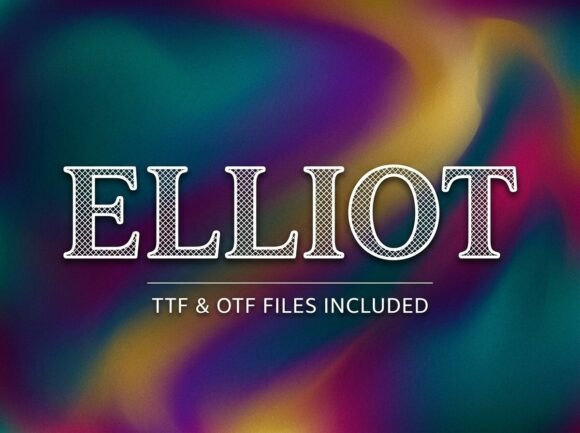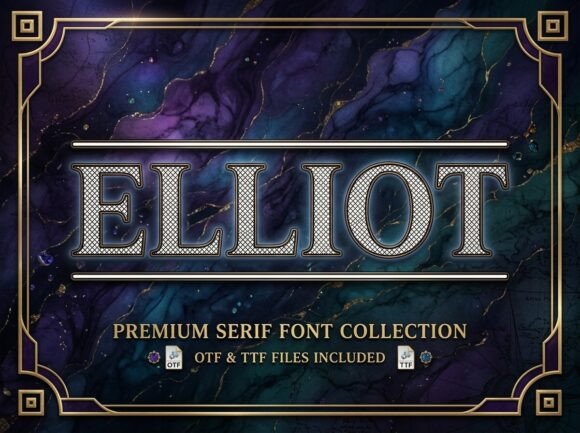
Elliot Font: Elevate Your Designs with Modern Sophistication
In the world of typography, fonts play a crucial role in conveying the tone and personality of a brand. For designers and crafters seeking to add a layer of modern sophistication to their designs, the Elliot font is an exceptional choice. This premium display serif typeface embodies a unique blend of refinement and industrial flair, making it perfect for luxury tech branding, high-end sportswear logos, architectural firm identities, and social media headers.
The Unique Characteristics of Elliot Font
The Elliot font boasts classic, high-contrast serif letterforms that are uniquely filled with an intricate, cross-hatched mesh pattern. This distinctive feature sets Elliot apart from other serif fonts and gives it a modern edge. The crisp white outlines and rhythmic geometric texture of the font create a visually striking effect that is sure to capture the attention of your audience.
Design Inspiration and Applications
The Elliot font draws inspiration from the intersection of luxury and industrial design. Its refined-and-industrial soul makes it an ideal choice for brands seeking to convey a sense of high-end quality and sophistication. Some of the key applications for the Elliot font include:
- Independent luxury tech branding: Elliot’s unique blend of refinement and industrial flair makes it perfect for luxury tech brands seeking to establish a strong visual identity.
- High-end sportswear logos: The font’s modern sophistication and geometric texture make it an excellent choice for high-end sportswear brands looking to create a stylish and premium visual identity.
- Architectural firm identities: Elliot’s classic serif letterforms and intricate mesh pattern evoke a sense of luxury and refinement, making it suitable for architectural firms seeking to establish a professional and high-end brand image.
- High-impact social media headers: The font’s crisp white outlines and geometric texture make it perfect for creating eye-catching social media headers that demand attention.
Typography and Brand Identity
Typography plays a vital role in establishing a brand’s visual identity. The Elliot font offers a range of benefits for designers and crafters seeking to create a strong brand image. By incorporating Elliot into your designs, you can:
- Convey luxury and sophistication: Elliot’s refined-and-industrial soul makes it an excellent choice for brands seeking to convey a sense of high-end quality and sophistication.
- Establish a unique visual identity: The font’s distinctive cross-hatched mesh pattern and crisp white outlines make it easy to create a unique visual identity that sets your brand apart from others.
- Enhance brand recognition: By using Elliot consistently across your designs, you can create a strong brand image that is instantly recognizable.
Tips for Using Elliot Font Effectively
To get the most out of the Elliot font, here are some tips for using it effectively:
- Use it sparingly: Elliot is a premium display serif font, so it’s best to use it sparingly to create a strong visual impact.
- Pair it with complementary fonts: Elliot pairs well with sans-serif fonts, so consider combining it with a clean and modern sans-serif font to create visual interest.
- Experiment with colors and textures: Elliot’s geometric texture and crisp white outlines make it easy to experiment with different colors and textures to create a unique visual effect.
| Author | clipartguru |
The Elliot font is a premium display serif typeface that offers a unique blend of refinement and industrial flair. Its distinctive cross-hatched mesh pattern, crisp white outlines, and rhythmic geometric texture make it perfect for luxury tech branding, high-end sportswear logos, architectural firm identities, and high-impact social media headers. By incorporating Elliot into your designs, you can add a layer of modern sophistication and create a strong visual identity that sets your brand apart.